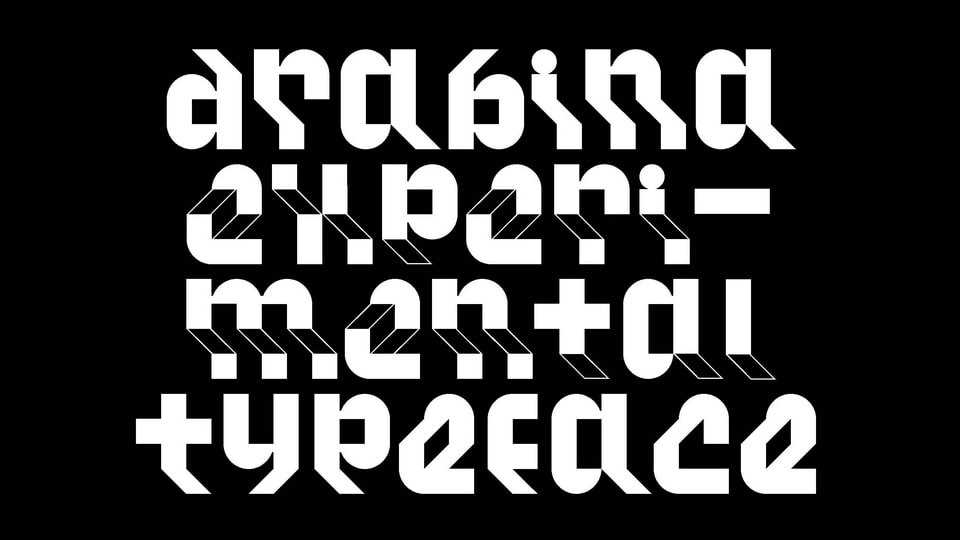
Download Drabina font, a bold and geometric typeface, yet agile through the play of modules in three-dimensional space. An additional feature of Drabina is the absence of ascenders and descenders.
Designer: Mark Blondie